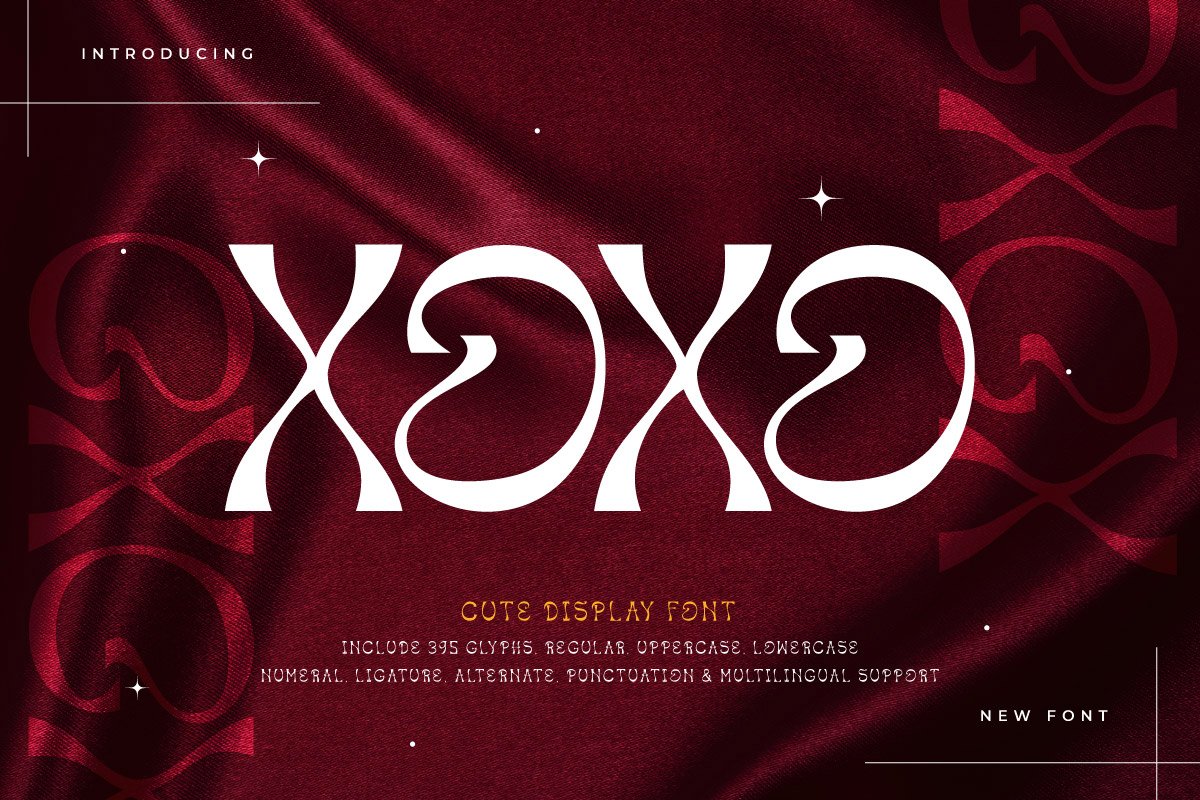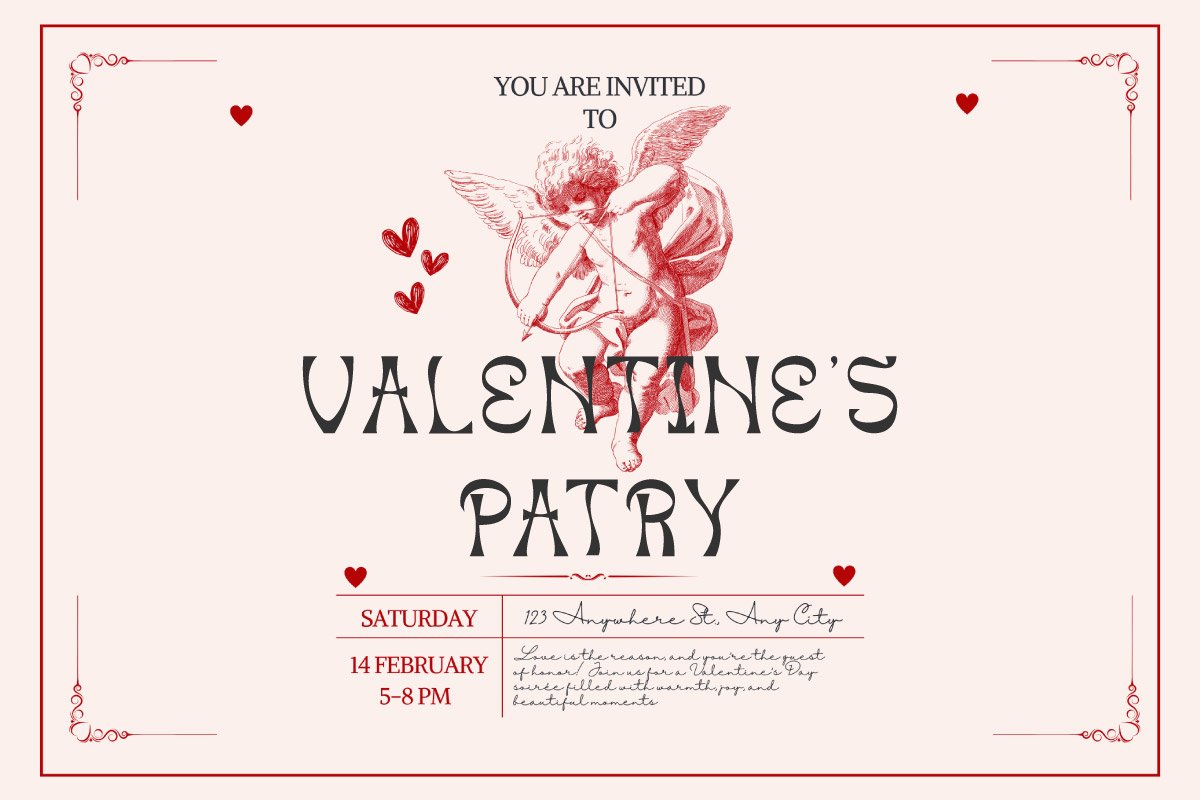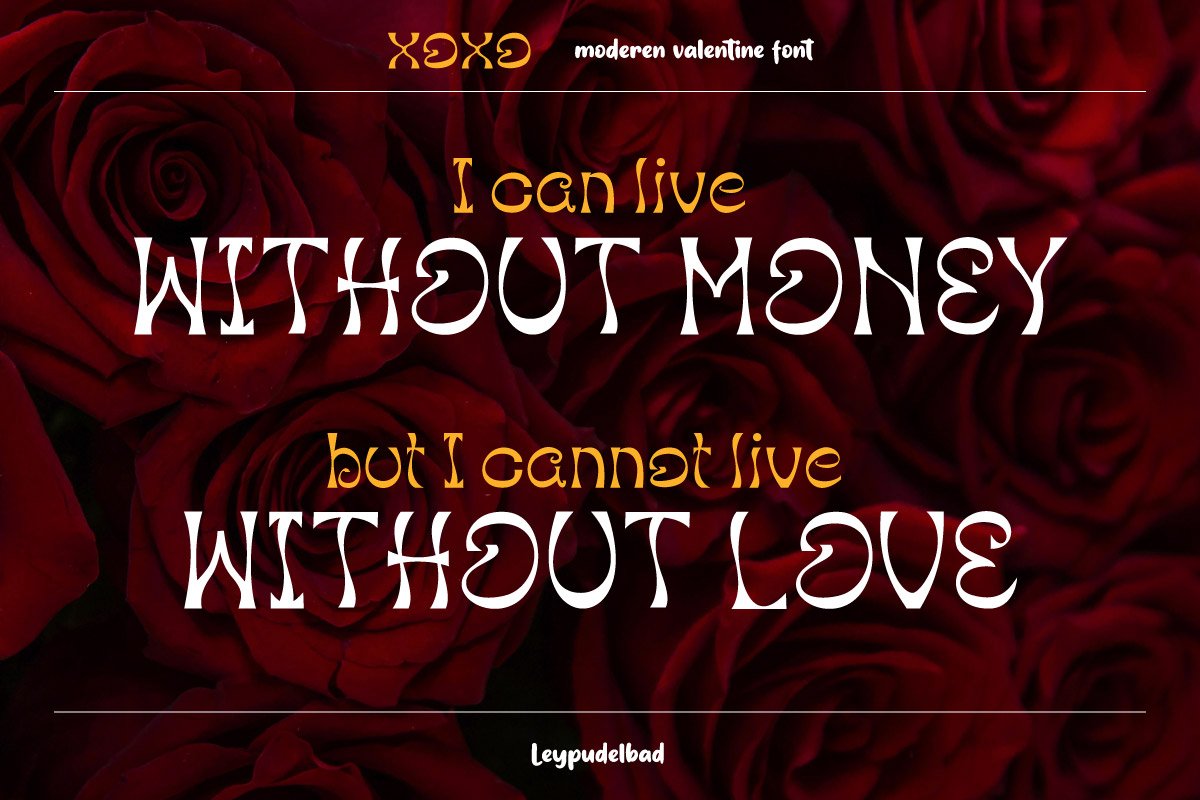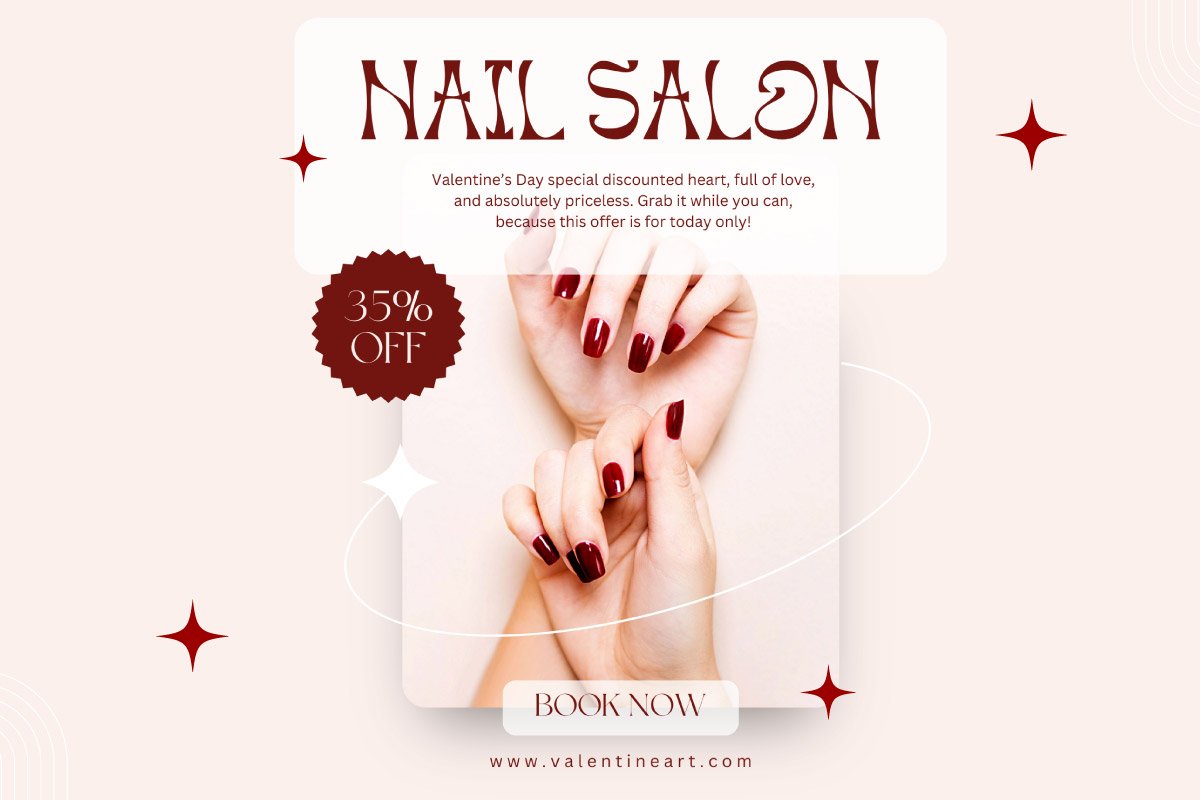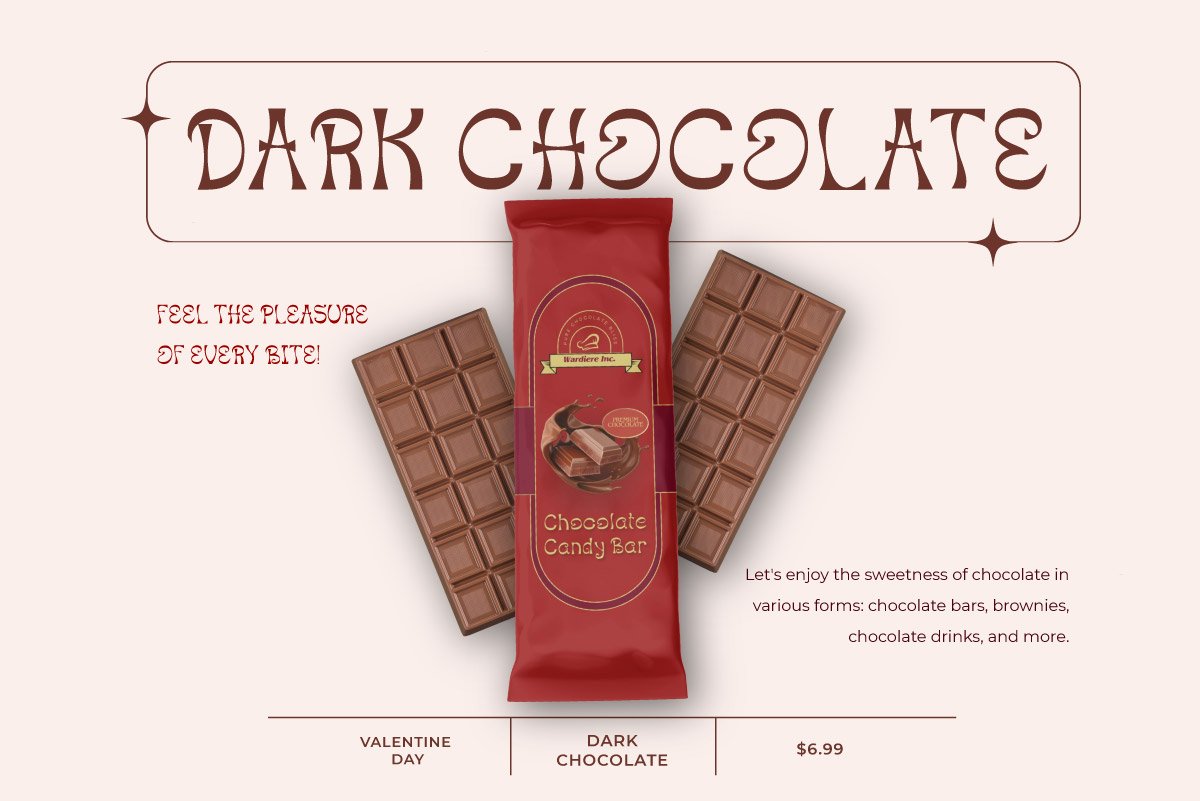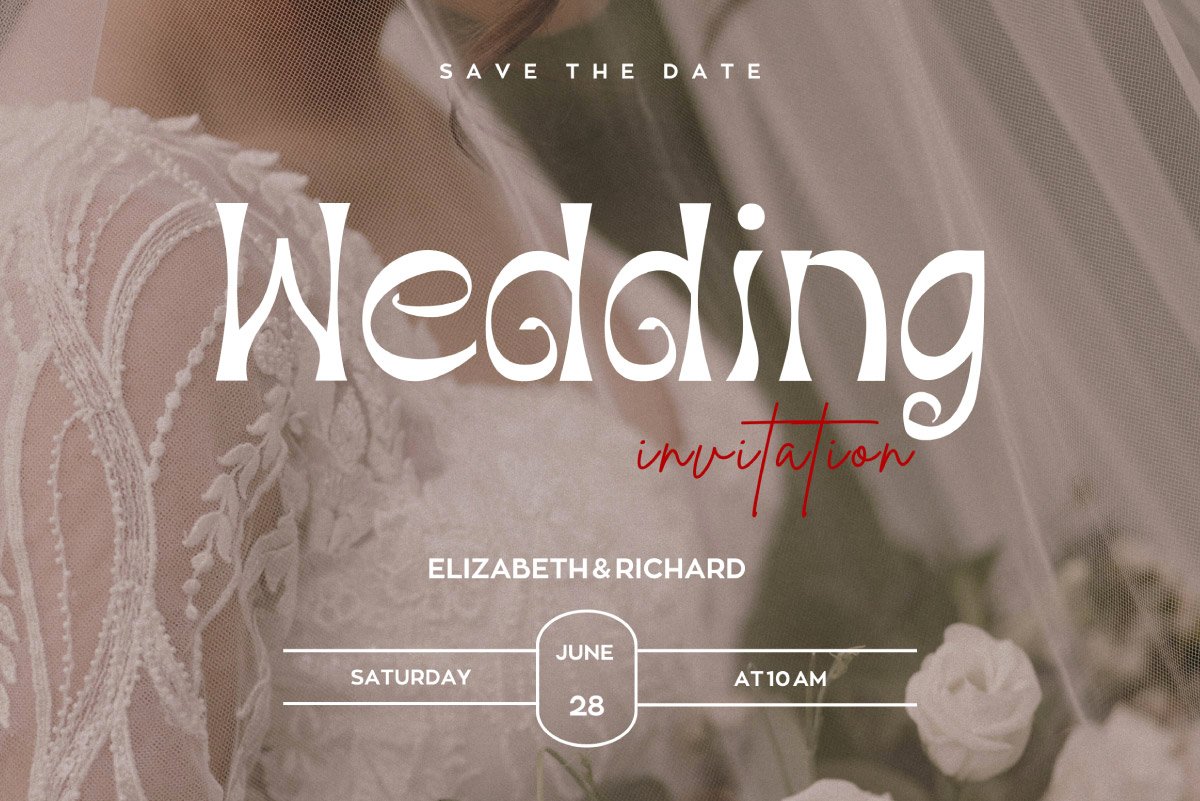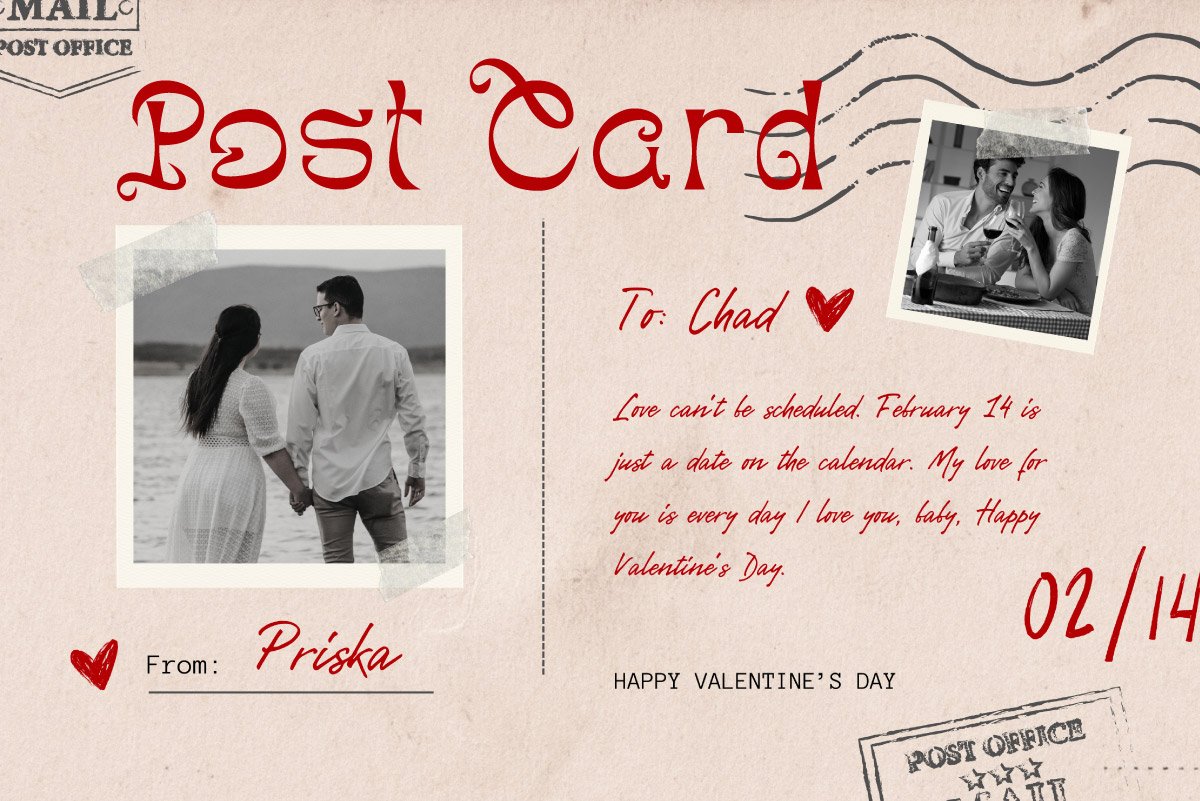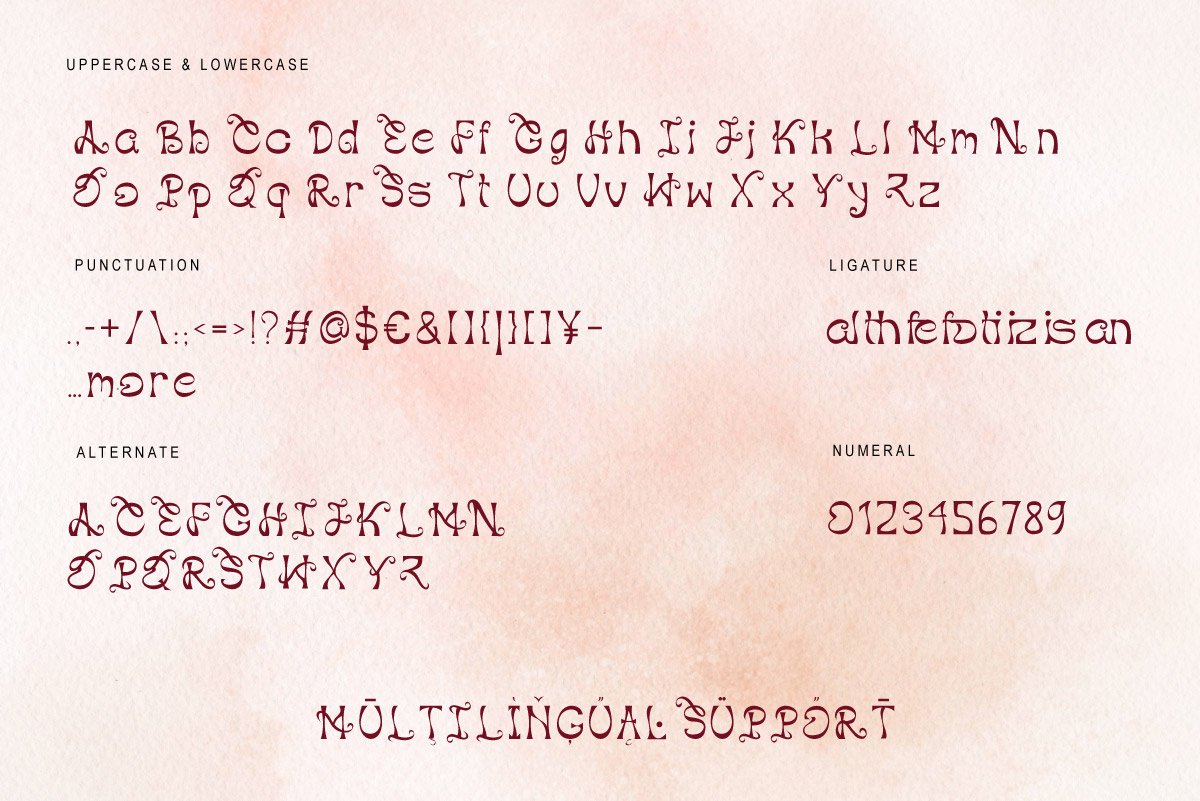
5. XOXO – Playful & Cute Valentine Font
XOXO – Playful & Cute Valentine Font
Celebrate love with XOXO, a charming and romantic font designed to add a sweet and joyful touch to your Valentine’s projects. With its cute and playful design, XOXO is perfect for love letters, Valentine’s cards, wedding invitations, social media posts, and festive promotions. The soft curves and elegant strokes create a warm and heartfelt feel, making it ideal for any romantic and joyful design. Whether you’re creating special discounts, love-themed branding, or charming packaging, XOXO will enhance your design with aesthetic appeal and readability.